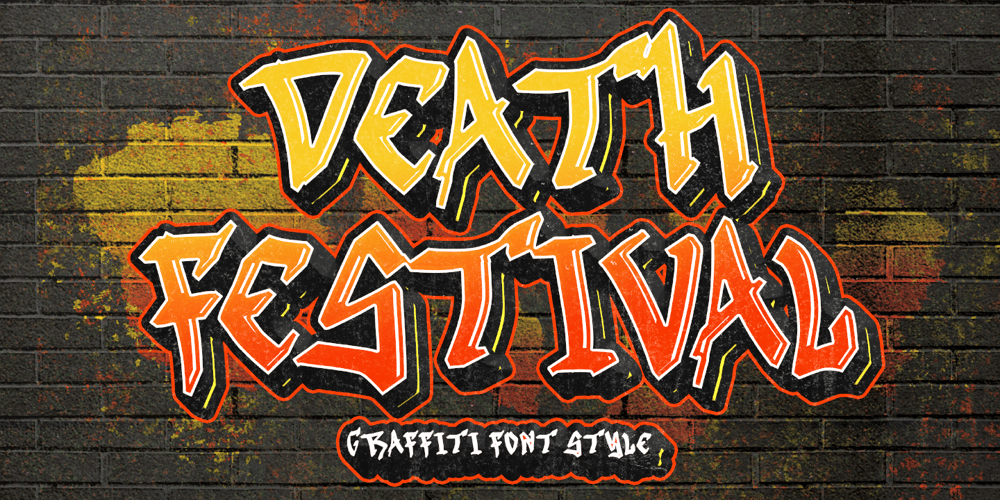
Death Festival Font Family was designed by Isroni Yoga Prasetya and published by Yoga Letter. Death Festival contains 1 styles and family package options. “Death Festival” is a unique and elegant graffiti font. This font contains uppercase, lowercase, numerals, punctuation, and multilingual support. Very suitable for banners, posters, stickers, tattoos, wall street, wall art, murals, Christmas, Halloween, Valentine’s, and others.